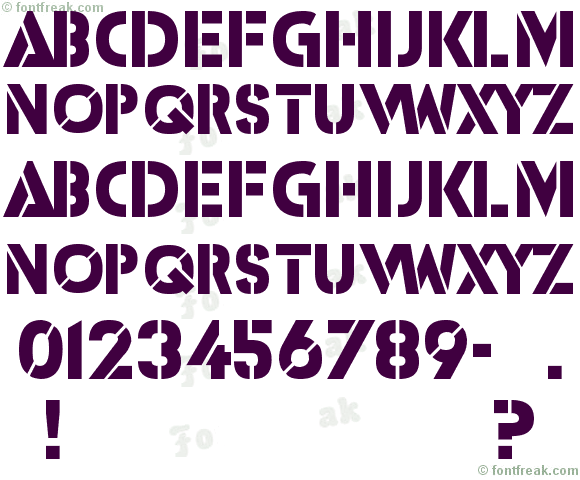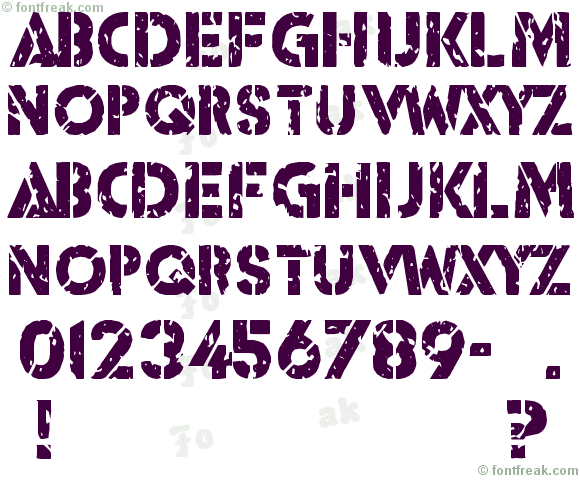
ICBM SS-20, designed by Vic Fieger, is a captivating display font that falls into the decorative category. This font exhibits a bold, geometric design characterized by its thick stroke weight and minimal contrast, making it visually striking and easy to read. The letterforms are well-spaced, ensuring clarity while maintaining a playful and modern aesthetic. The unique design features sharp angles and a futuristic vibe, which can add an element of excitement to any project.
This font is particularly well-suited for a variety of creative applications. Graphic designers can utilize the ICBM SS-20 font for eye-catching movie posters, where its bold presence will draw attention and convey a sense of adventure. Additionally, it works wonderfully for comic book titles, lending a dynamic feel that complements illustrated narratives. Small business owners might find it ideal for branding, especially for tech startups or gaming companies looking to establish a modern identity. Content creators can also enhance their online presence by using this font in promotional graphics or social media posts, making their content stand out in a crowded digital landscape.
The target audience for ICBM SS-20 includes graphic designers, small business owners, and content creators who seek a font that combines uniqueness with versatility. With its freeware licensing, it's accessible for anyone looking to elevate their design projects without financial constraints.
What truly sets the ICBM SS-20 font apart is its distinctive blend of boldness and modernity. It captures attention while allowing for creative expression, making it an excellent choice for those who wish to infuse their work with personality. If you're seeking a fresh, impactful typeface, look no further than the ICBM SS-20 font free download, which is sure to elevate your design endeavors.